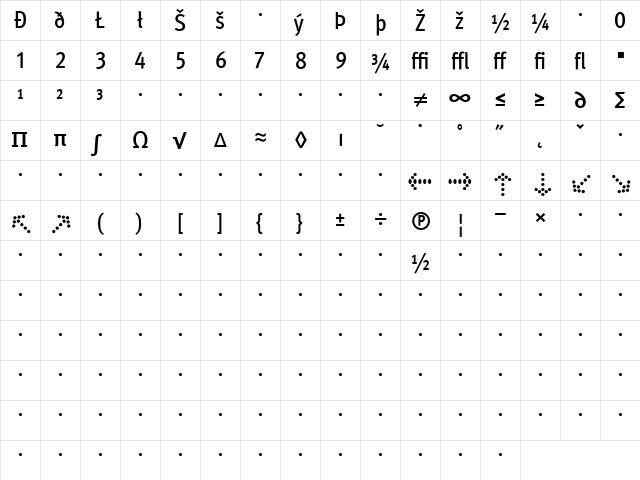
MetaCondMedium Medium Font Preview
MetaCondMedium Medium
MetaCondMedium Medium Font Details
| Foundry | Erik Spiekermann, Ole Schaefer, . Published by FontShop International for FontFont Release MetaCondensed is a trademark of FSI Fonts and Software GmbH |
Design Context for MetaCondMedium Typeface
MetaCondMedium offers clean, dependable letterforms without strong stylistic allegiance, making it a practical choice for designers who need flexibility. Its narrow stance lets it pack a punch even in space-constrained designs.